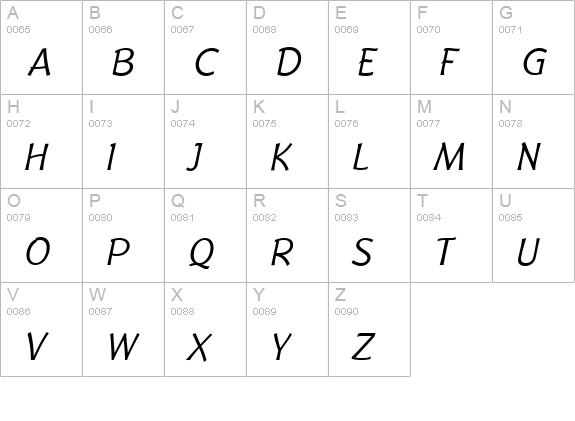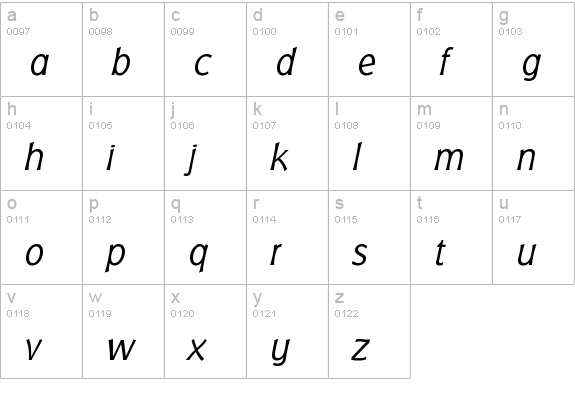
BadgerLightItalic Font Details
BadgerLightItalic font is a stylish and modern typeface that exudes sophistication and elegance. With its sleek lines and delicate curves, this italic font is perfect for adding a touch of refinement to any design project. The light weight of the font gives it a subtle and understated appearance, making it versatile for a wide range of applications. Best of all, BadgerLightItalic font is completely free to download at FontsMarket.com. Whether you're working on a professional presentation, creating invitations, or designing a website, this font is sure to elevate your project with its timeless appeal. Download BadgerLightItalic today and give your designs a touch of class and sophistication.